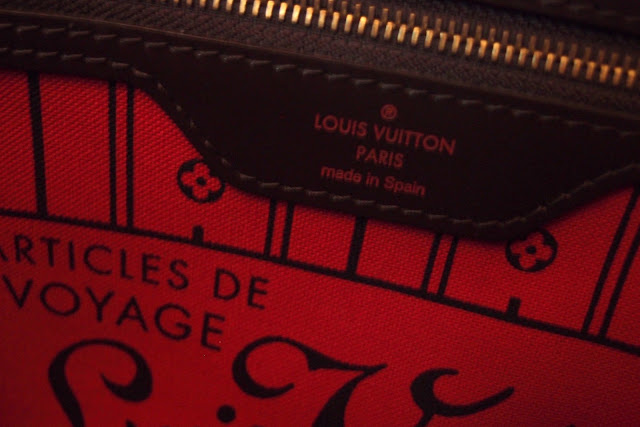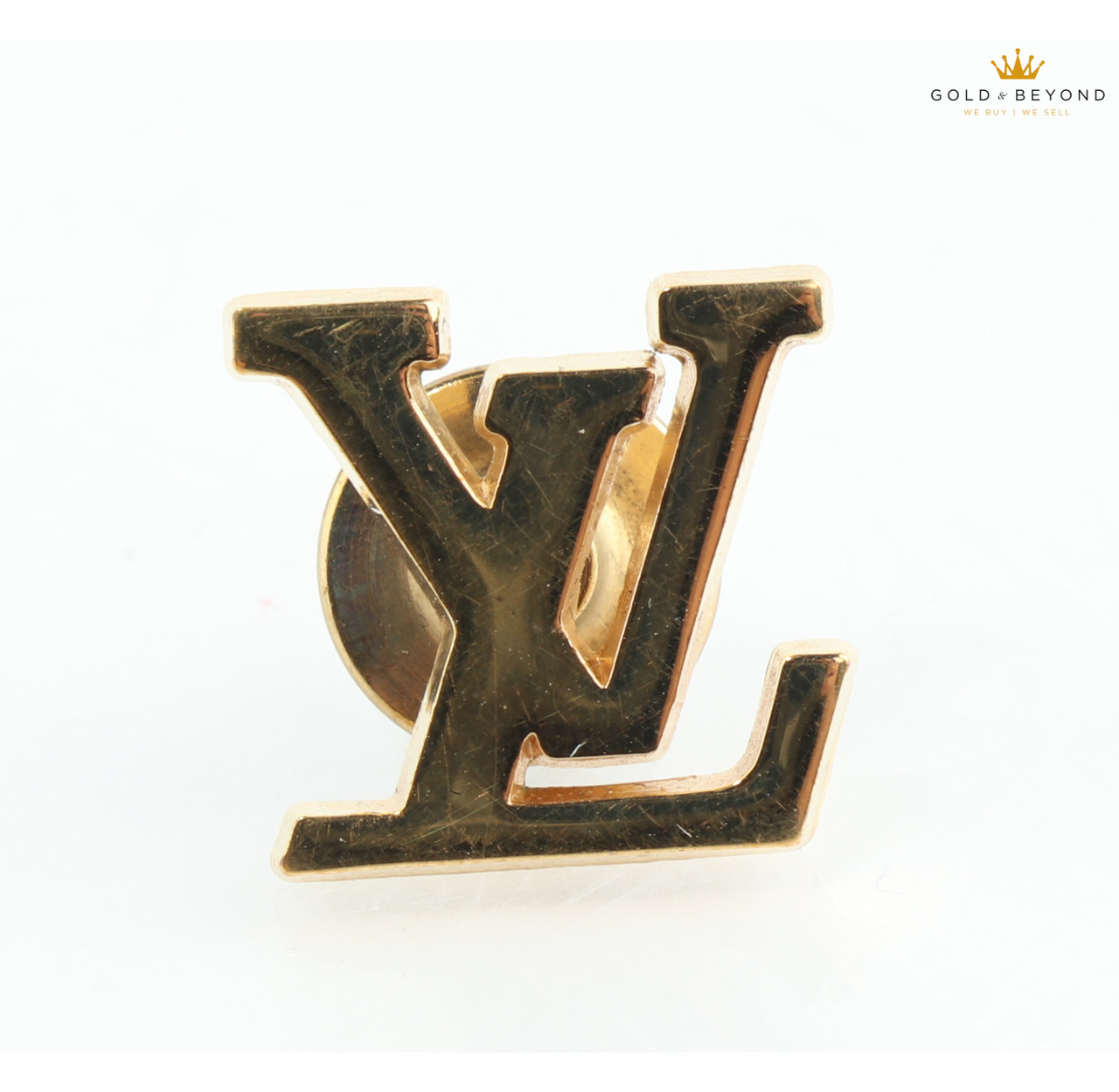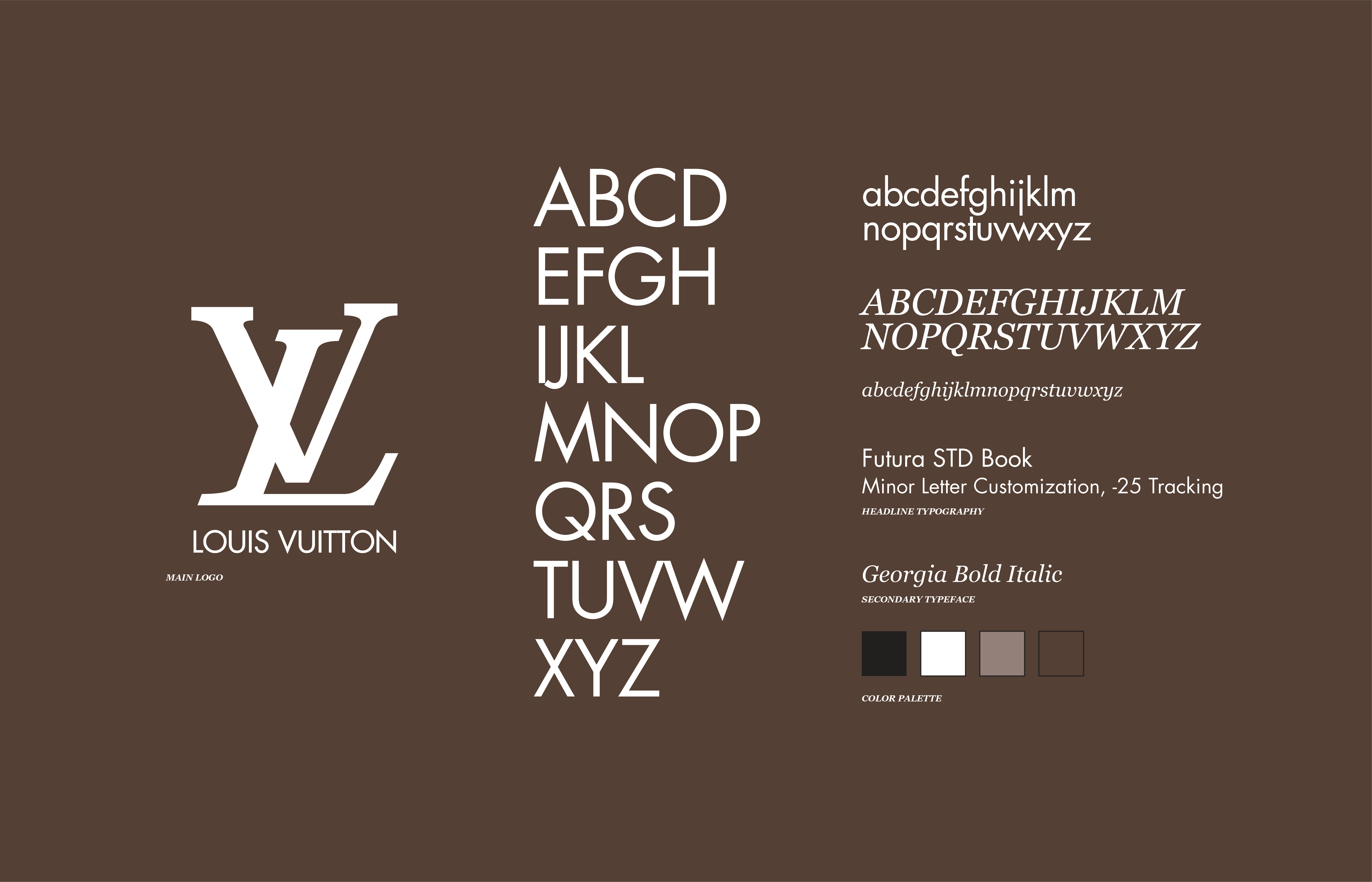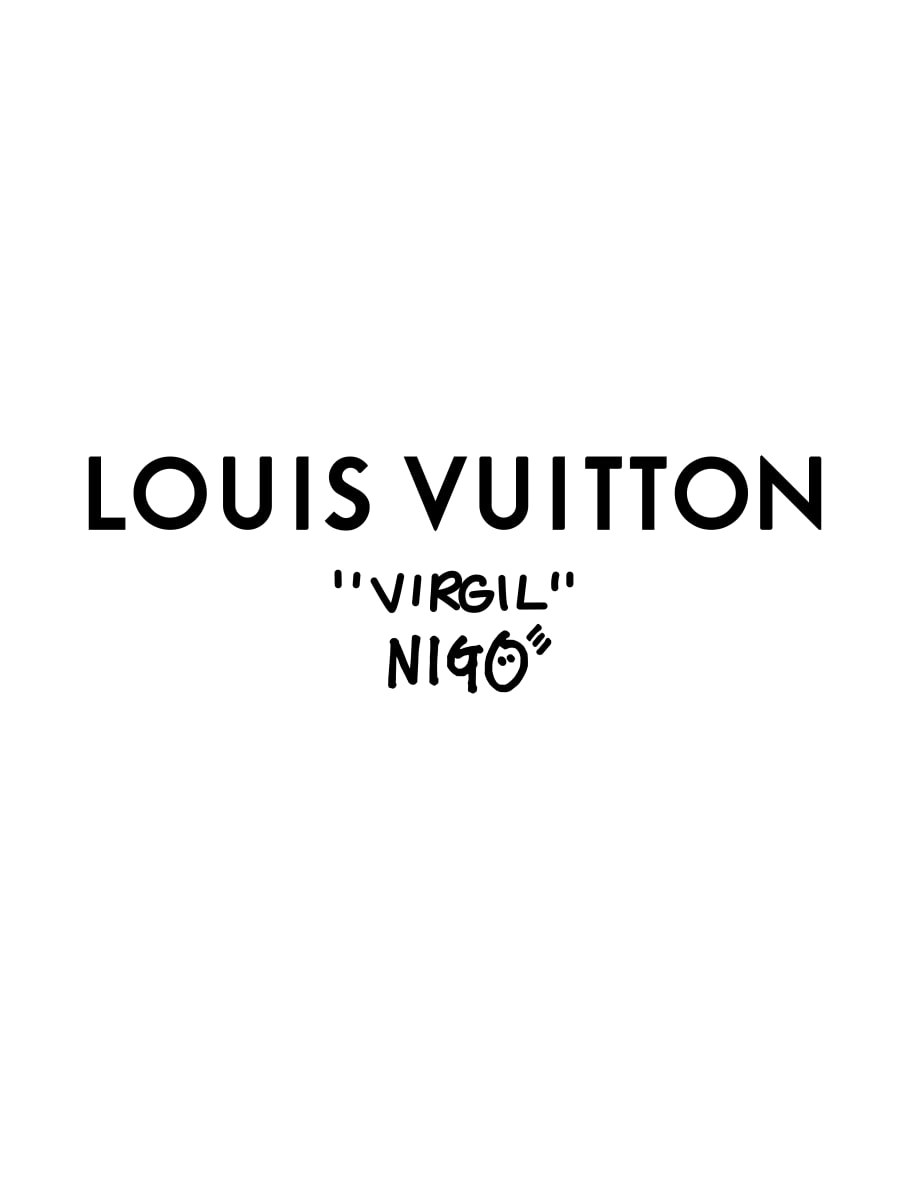
Louis Vuitton Lv Logo Font
Louis vuitton lv logo font. What is logo louis vuitton font. I did a lot of searching but could not find the name of the designer of this font. Louis vuitton uses futura medium font lettering for their emblem. The font used for louis vuitton logo is futura medium which is a geometric sans serif font designed by paul renner and published by linotype.
This is a clean geometric font family that comes in a very precise textual arrangement. Dapper dan is the best judge here as he is infamous fashion designer who forged many original styles of europe fashion houses to design his clothes. Dapper dan was just an ordinary tailor form harlem who was popularizing famous brands in 80s. The louis vuitton logo has two parts the monogram and the spelled out louis vuitton.
Futura is a geometric sans serif typeface designed by paul renner and released in 1927. It is based on geometric shapes especially the circle similar in spirit to the bauhaus design style of the period. It was designed as a contribution on the new frankfurt project. You can recreate the look of the lv monogram by using berthold walbaum standard bq medium with some modifications slant the l leave the v and thicken the serifs.
The monogram was created as an original piece and is not created using a font. Intrepid is the font used in the louis vuitton logo. Paul renner took the charge for designing it and releases it on linotype for the first time. Simply download it from the link below.